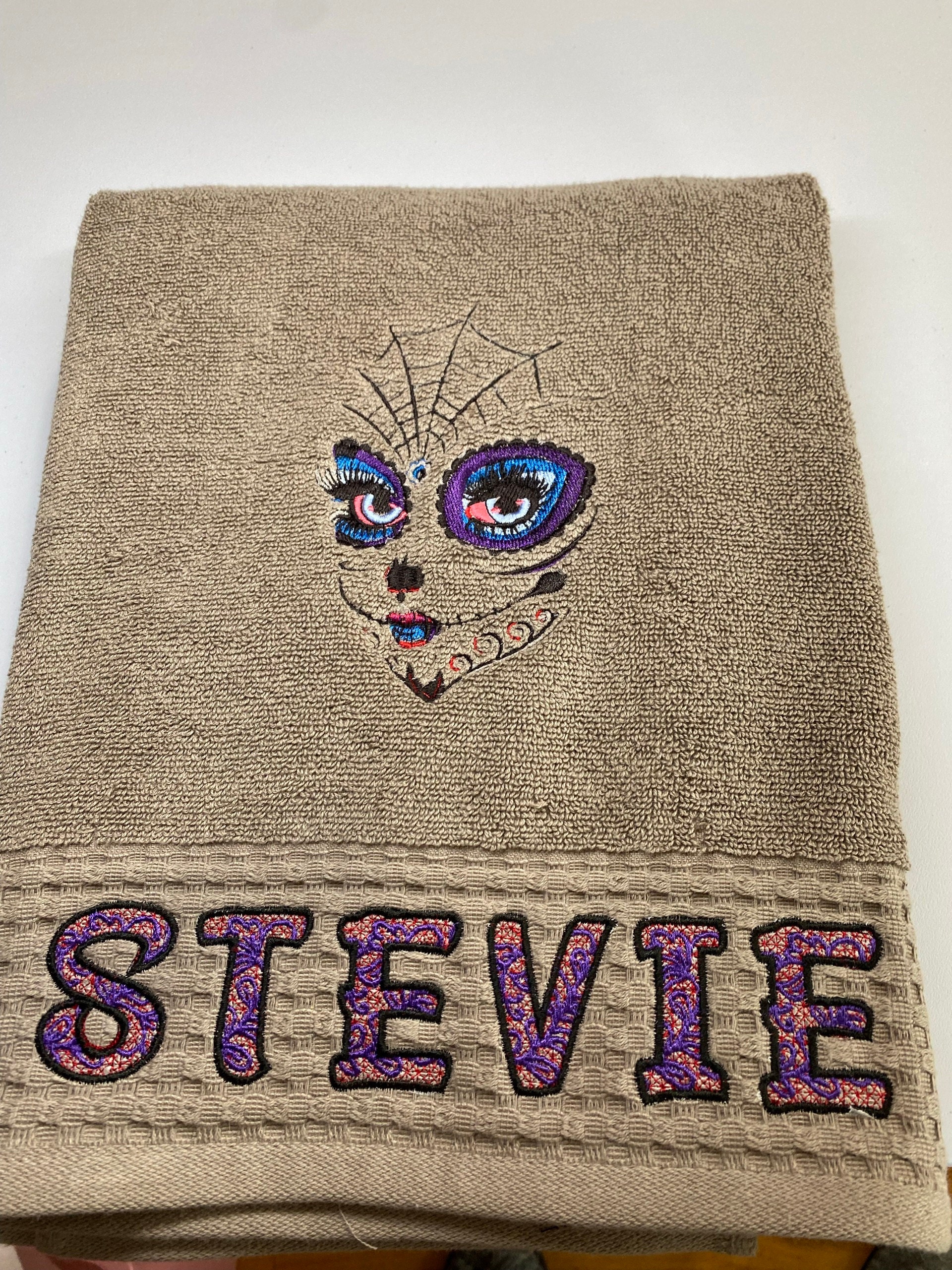
Lace Font FSL free standing lace monogram initial Font machine embroidery designs, frozen lacy alphabet letters assorted sizes, BX included!
Uppercase and lowercase, numbers 0-9, and punctuation marks.
Freestanding lace! The letters are stitched onto a non-woven water-soluble stabilizer.
This sewed out beautifully. I didn’t use it as free standing lace but as a design. It was a hit. Beautiful!!
Stitched out well, looks good
Really enjoy doing FSL projects. This is perfect.